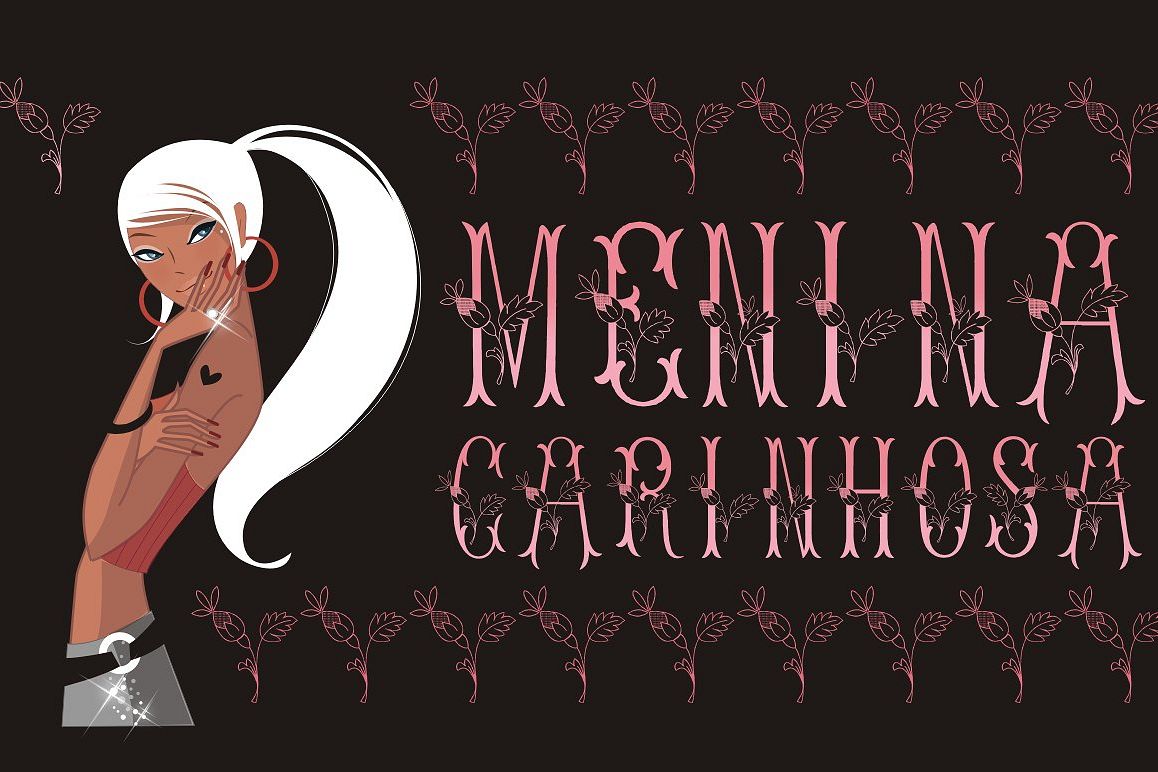
Menina Carinhosa
Meninas are the new comprehensive collection of innovative craft alphabets researched in rare cross-stitch booklets from 1850 to 1930. This alphabet series was entirely designed by hand, without use of auto-tracing, by Iza W, from Intellecta Design.
“Menina” means “Girl” in Portuguese. Menina Carinhosa is a Loving Girl.